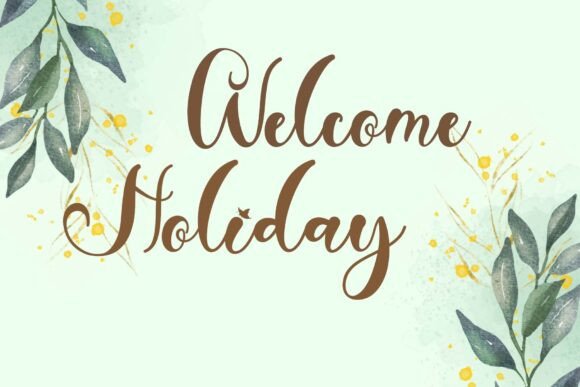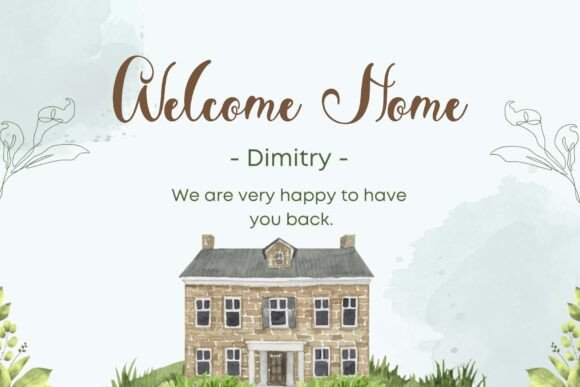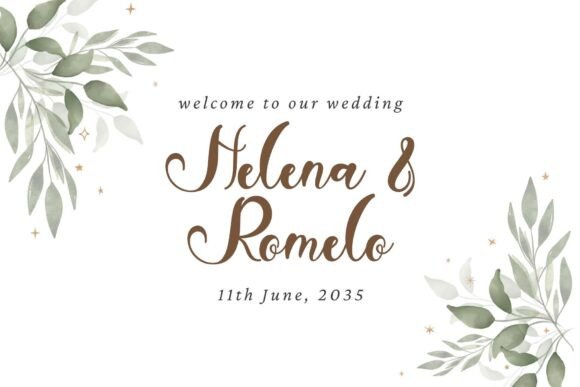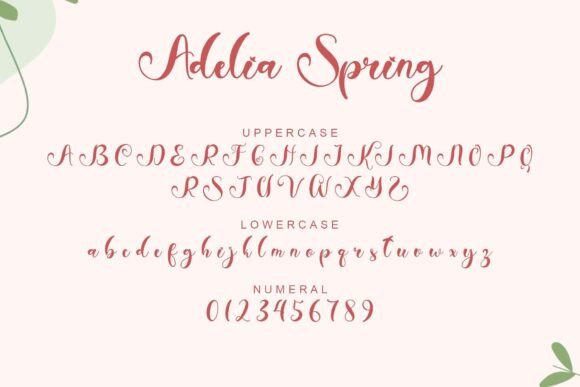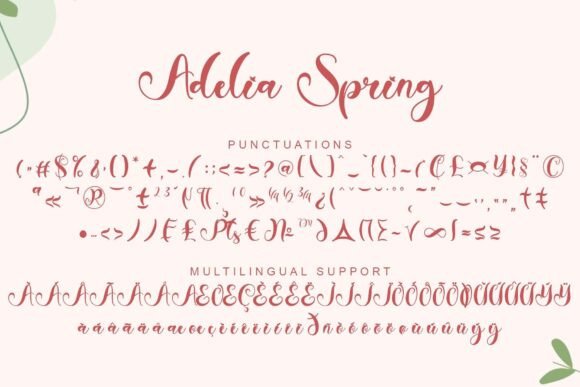
Introduction to Adelia Spring Font
As I sat in my cozy home office, surrounded by half-finished creative projects and scribbled notes, I stumbled upon the perfect font to elevate my spring-themed design. The Adelia Spring Font instantly caught my eye with its elegant and whimsical handwriting style, making me feel like I was sipping lemonade on a sunny porch. I knew right then and there that this font was a game-changer for any designer looking to add a touch of sophistication to their high-quality designs.
With its extensive character set, including uppercase and lowercase letters, numerals, and punctuations, the Adelia Spring Font is a versatile design resource that’s perfect for a wide range of creative projects. Whether you’re working on a holiday invitation, a summer-themed poster, or a branding project, this font’s unique charm will undoubtedly make your design stand out. Plus, its transparent background allows for seamless integration with any design element, making it a valuable addition to any designer’s toolkit.
Key Features of Adelia Spring Font
- High-quality design: Adelia Spring Font offers a unique and elegant design that’s perfect for creative projects.
- Transparent background: The transparent background of Adelia Spring Font makes it easy to use in various design scenarios.
- Unique characteristics: Adelia Spring Font features a beautiful, handwritten script with a mix of cursive and calligraphy styles.
- Design resource: This font is a valuable addition to any design resource library, perfect for use in logos, invitations, and other creative projects.
Honest Review: Adelia Spring Font
I recently had the chance to use the Adelia Spring Font in one of my creative projects, and I must say it’s a great addition to any design resource. This high-quality font is perfect for any project that requires a touch of elegance and sophistication.
Here are some of the things that work well with the Adelia Spring Font:
- ✨ Elegant and sophisticated design
- ✨ Versatile and easy to use
- ✨ High-quality and clear typography
However, I do have a few minor complaints:
- ⚠️ Limited font styles (only a few options available)
- ⚠️ Not ideal for bold or dramatic designs
Overall, I’m very impressed with the Adelia Spring Font. It’s a great addition to any design resource and perfect for any creative project that requires a touch of elegance and sophistication.
Getting the Most Out of It
To get the most out of the Adelia Spring Font, try using it in combination with other design elements, such as bold graphics and bright colors, to create a visually appealing design.
The Adelia Spring Font is perfect for a variety of creative projects, including:
- Social media graphics and advertisements